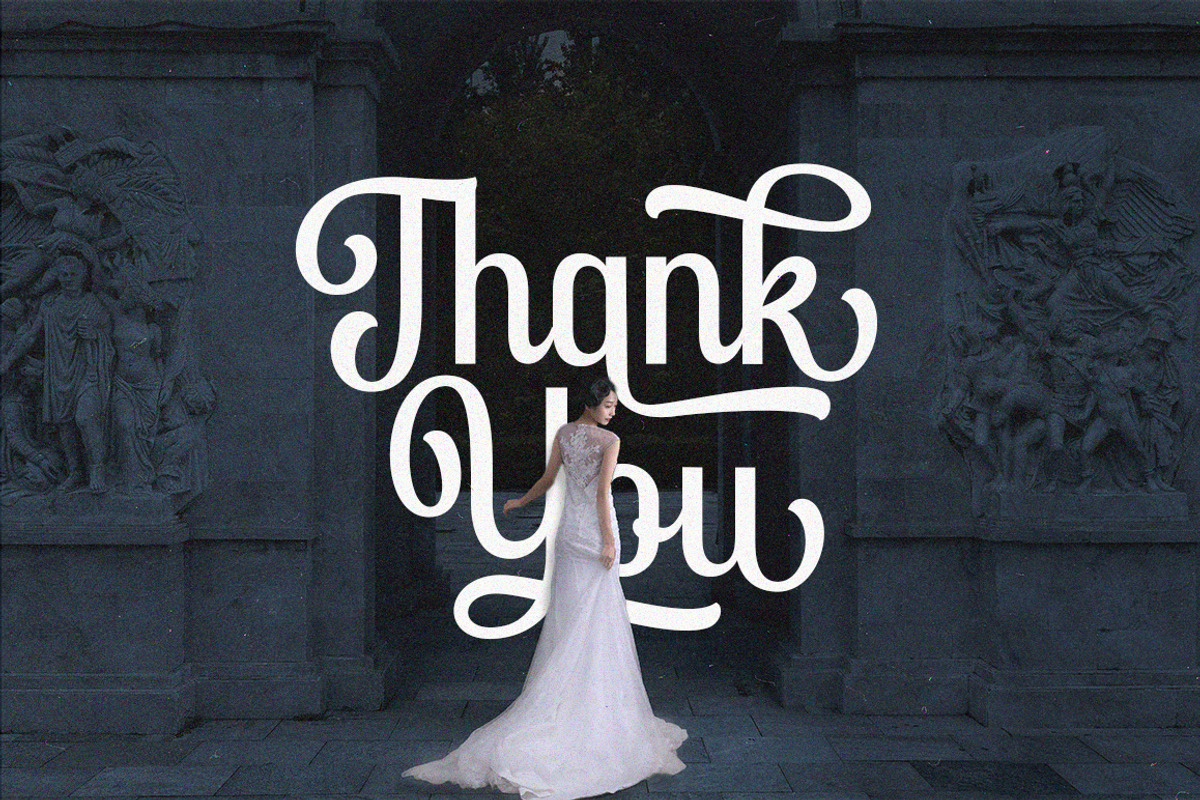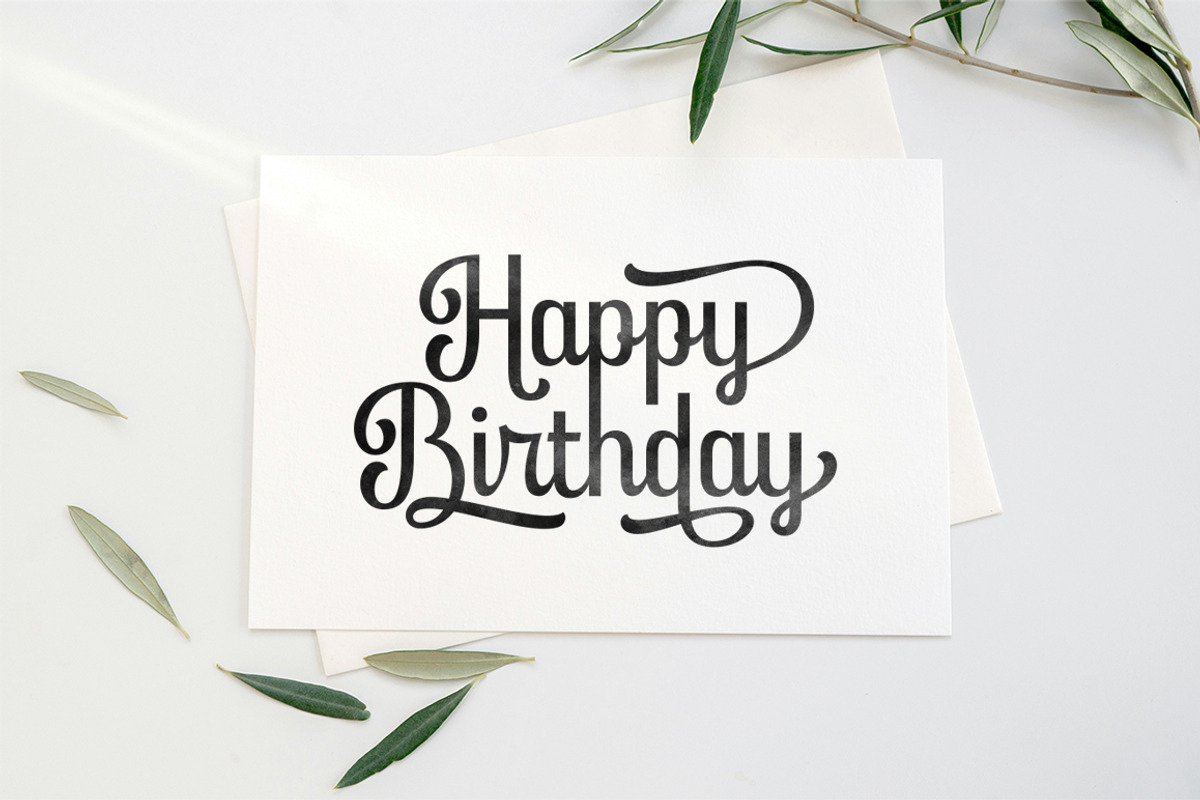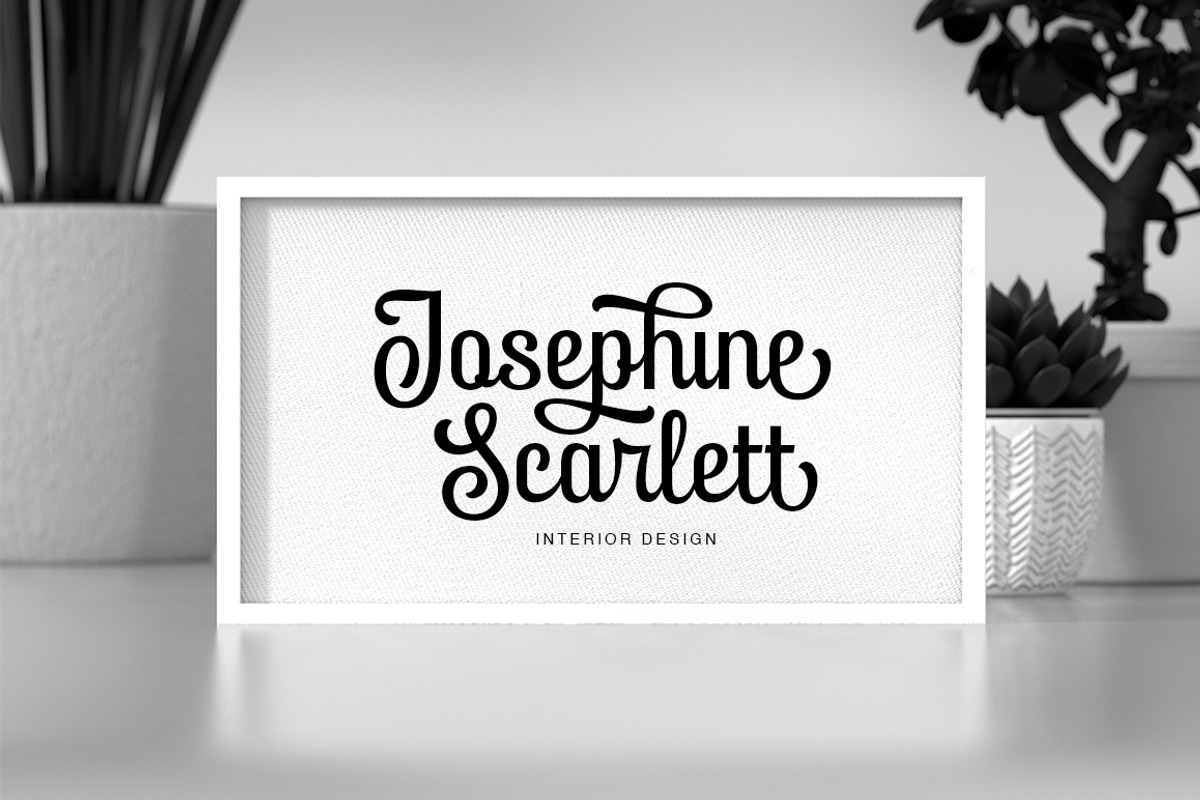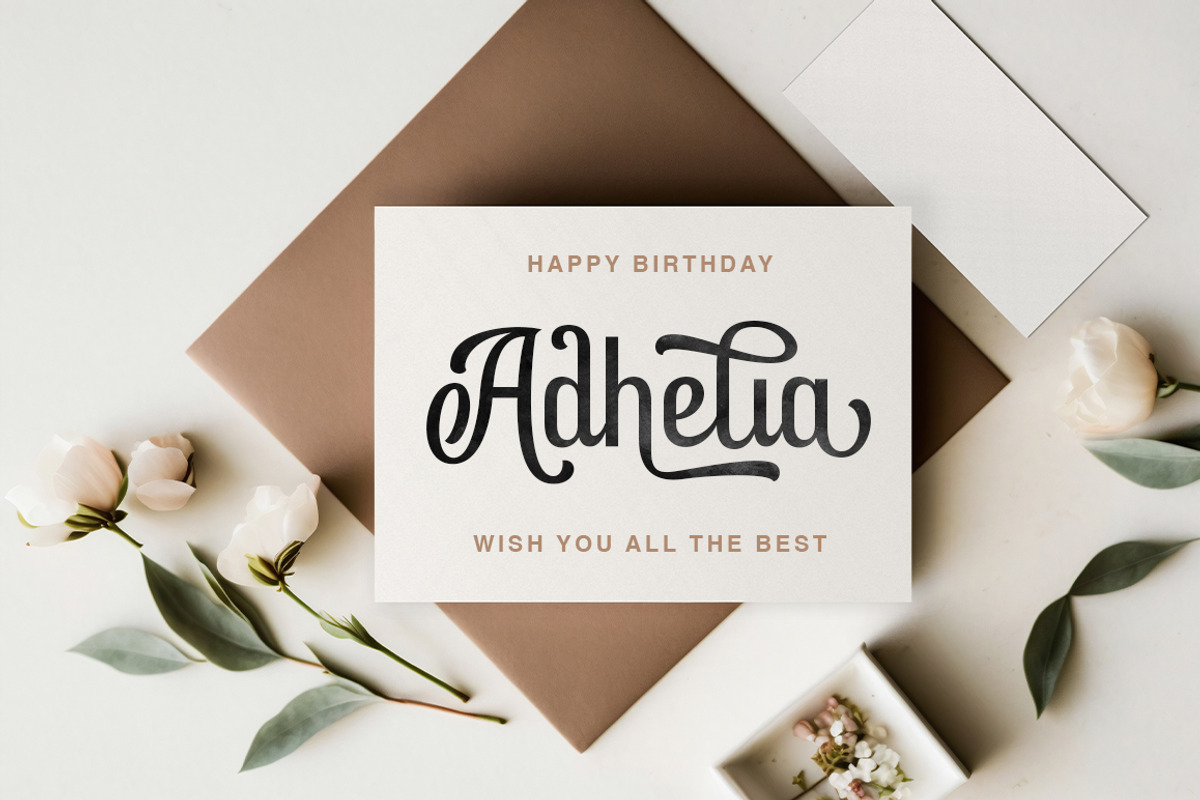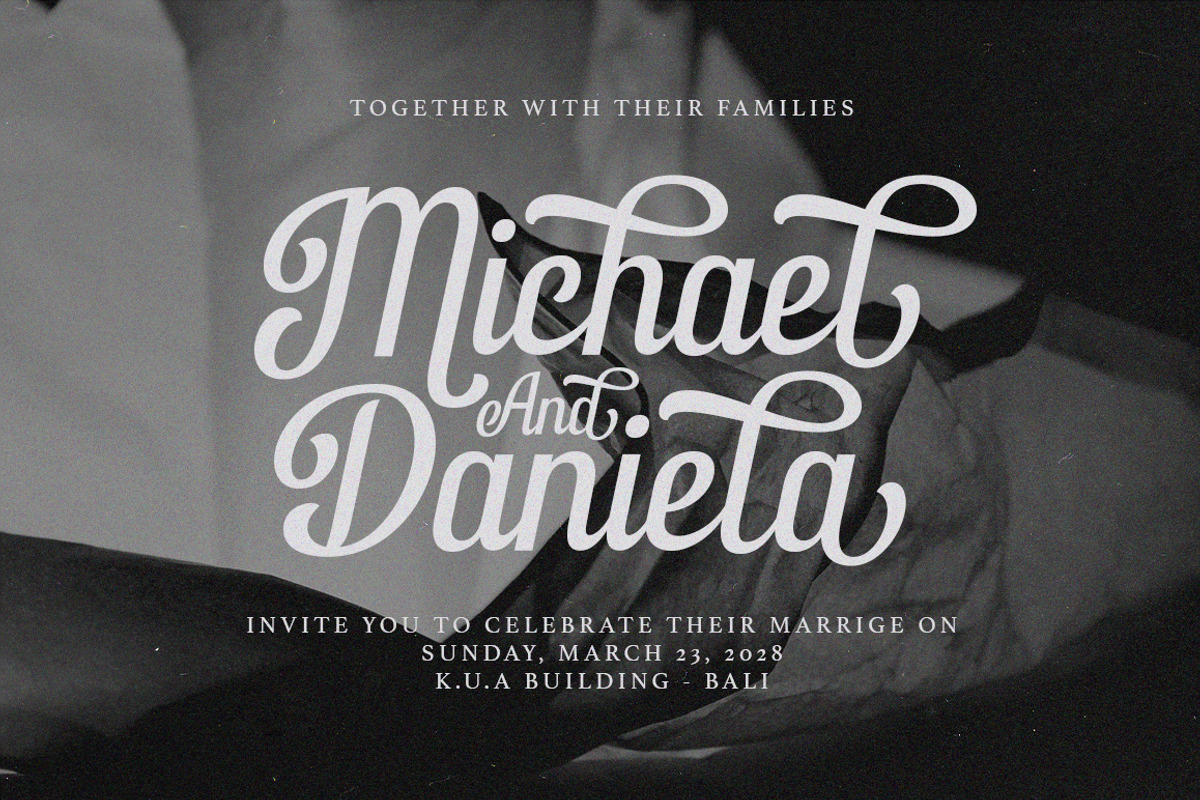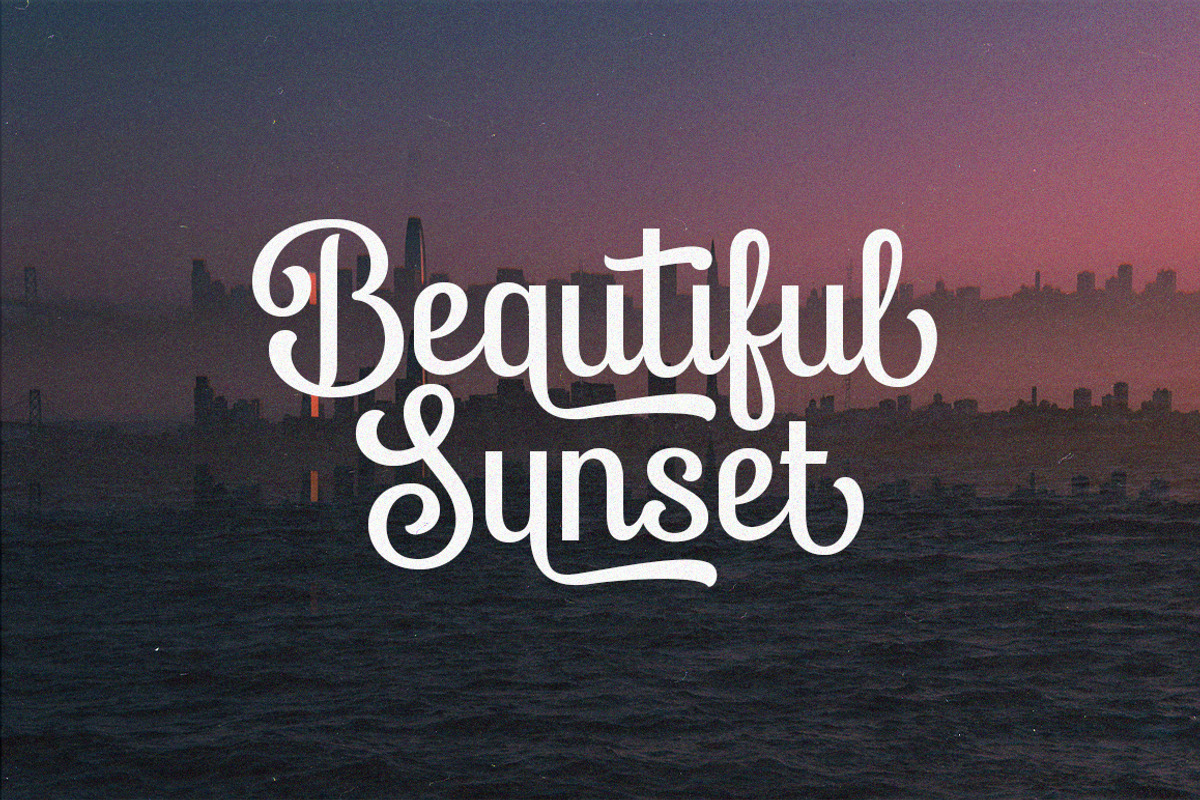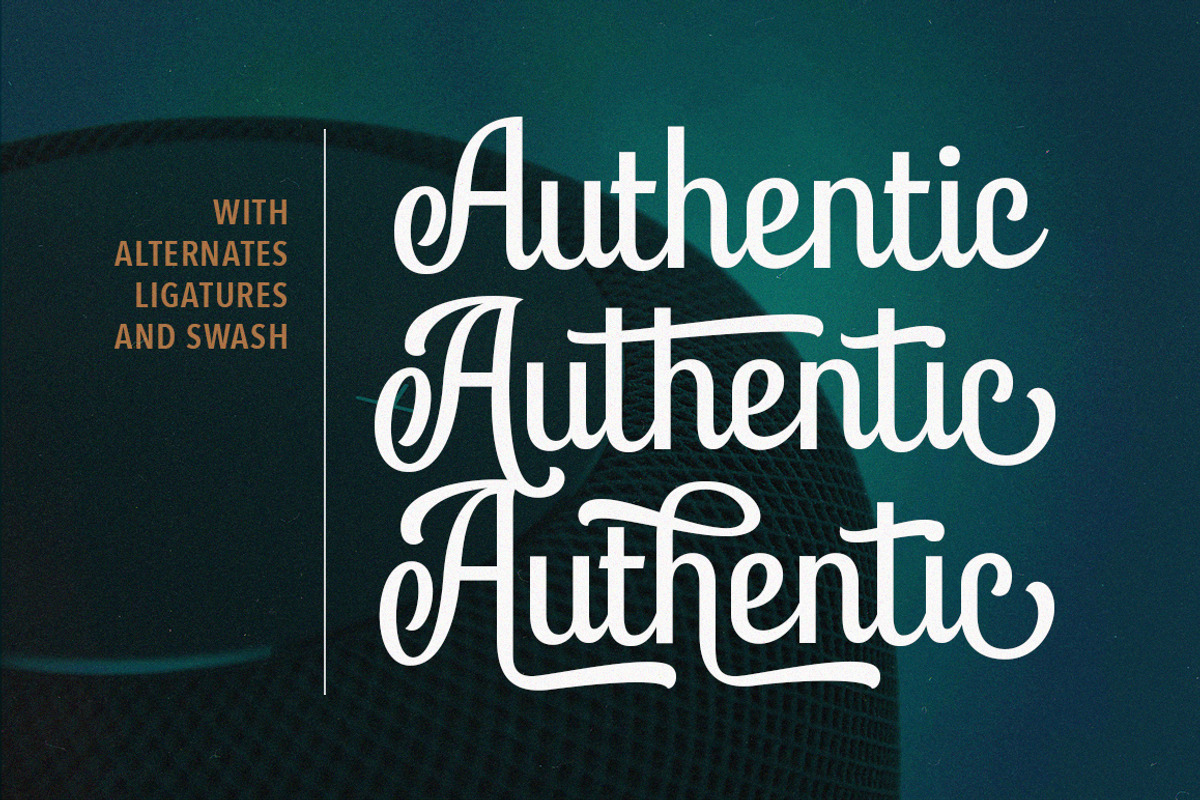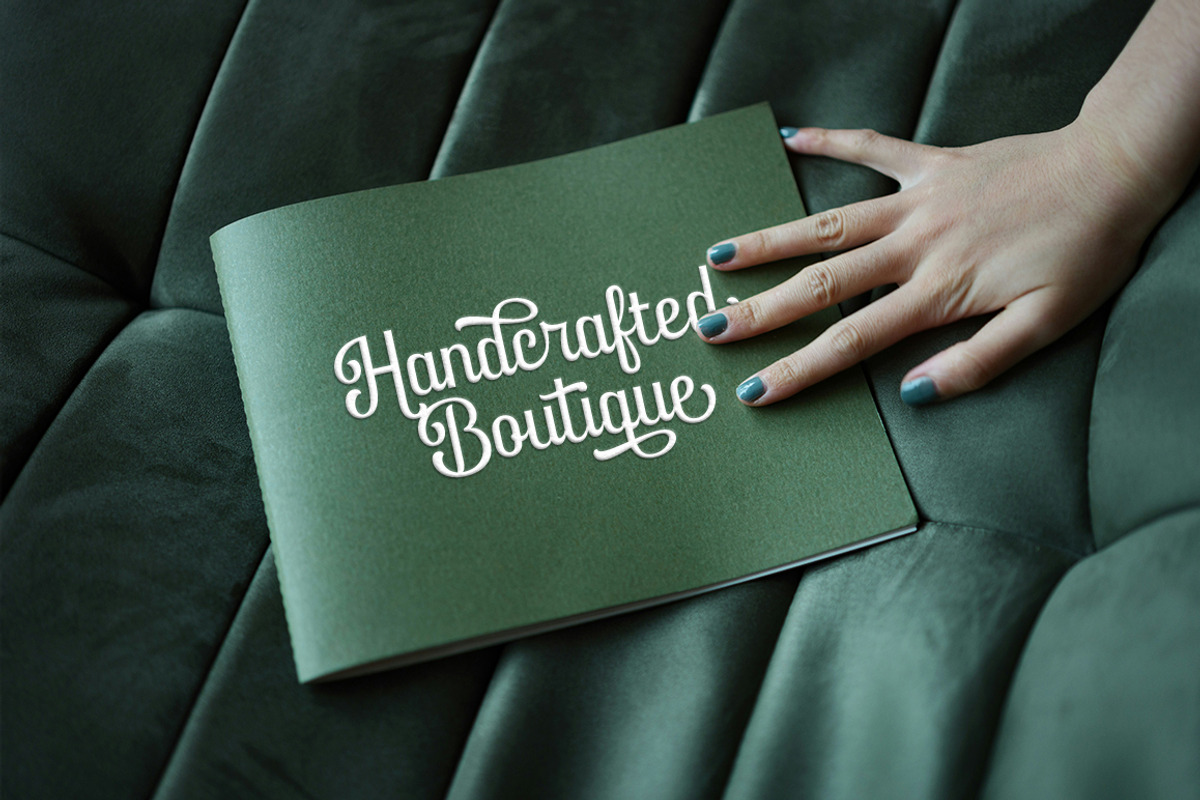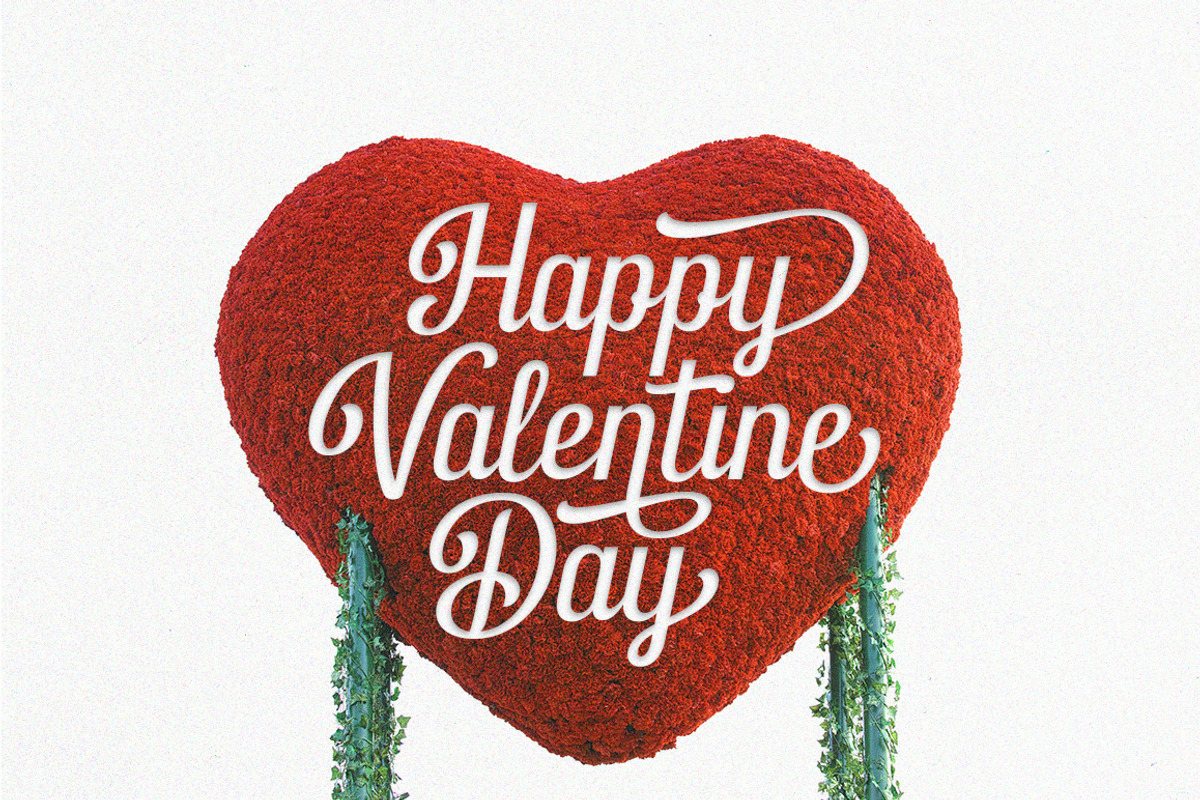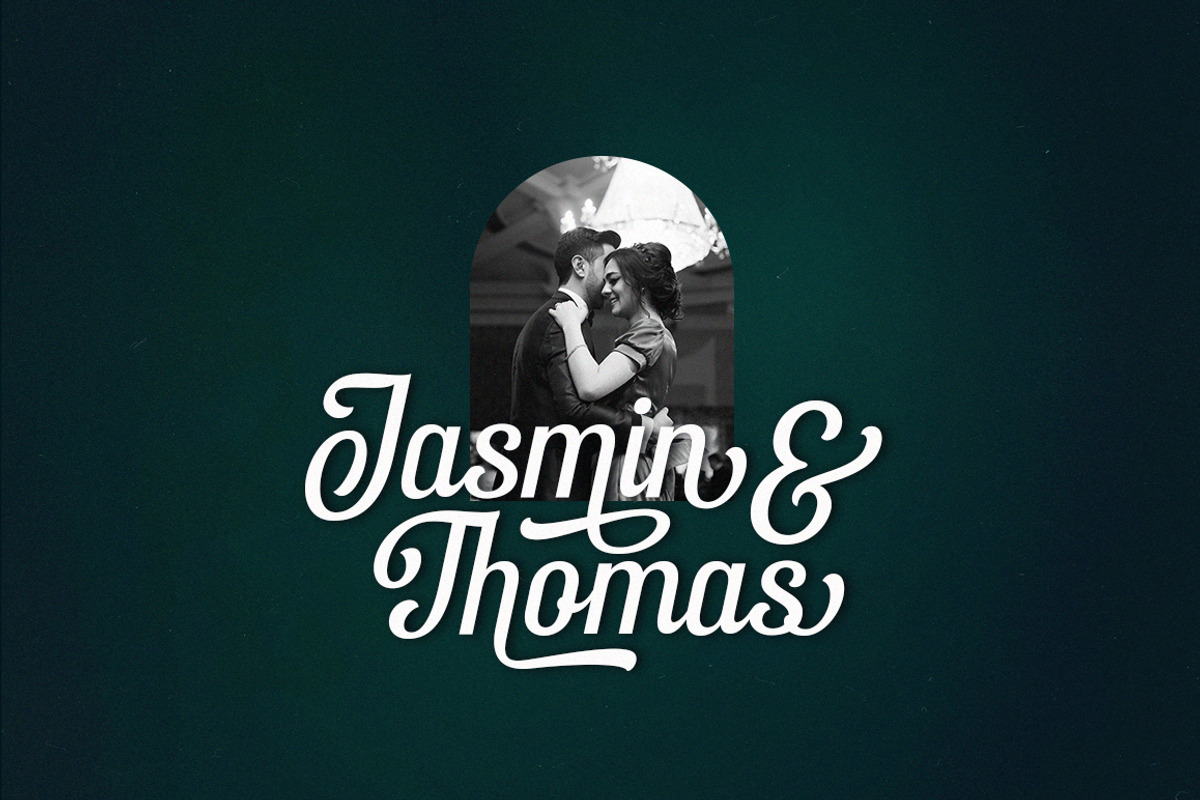
Andemyla Script
Andemyla Script - A new fresh and modern script font with decorative characters and a dancing baseline. So beautiful on invitation like handicraft, greeting cards, branding materials, business cards, quotes, posters, and more design concepts.
- Unique ligatures
- Unique alternates
- Stylistic sets
- International Symbols included